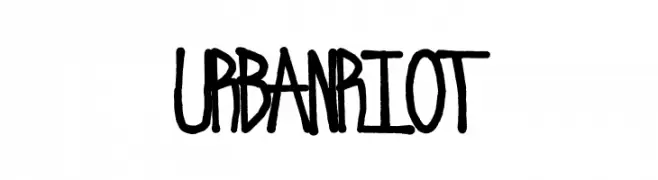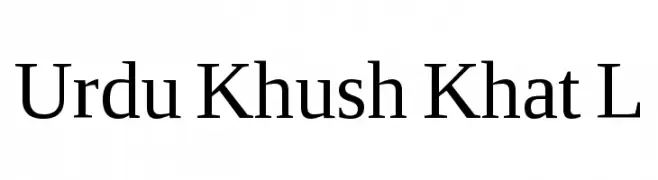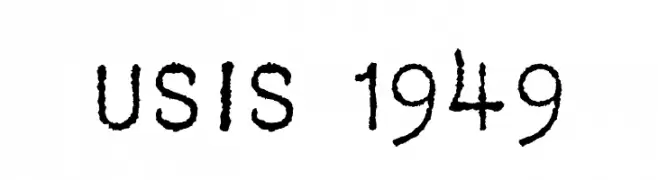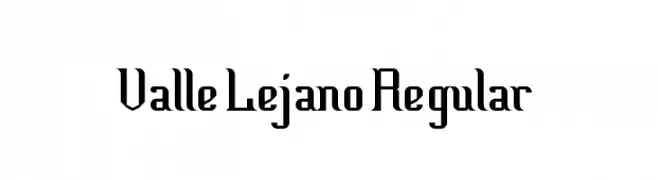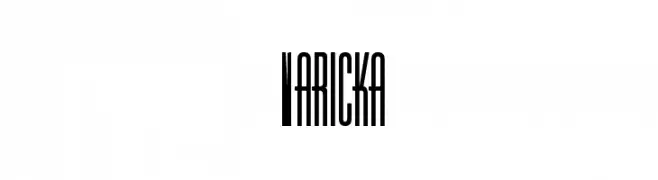
A bold, handwritten font with a raw, urban aesthetic.
A classic serif font with elegant and balanced characters.
A vintage, typewriter-style font with a distressed, handcrafted appearance.
A bold, angular font with modern and vintage influences, suitable for impactful designs.
An ornate and decorative script font with intricate loops and swirls.
A tall, narrow font with a modern, geometric style.